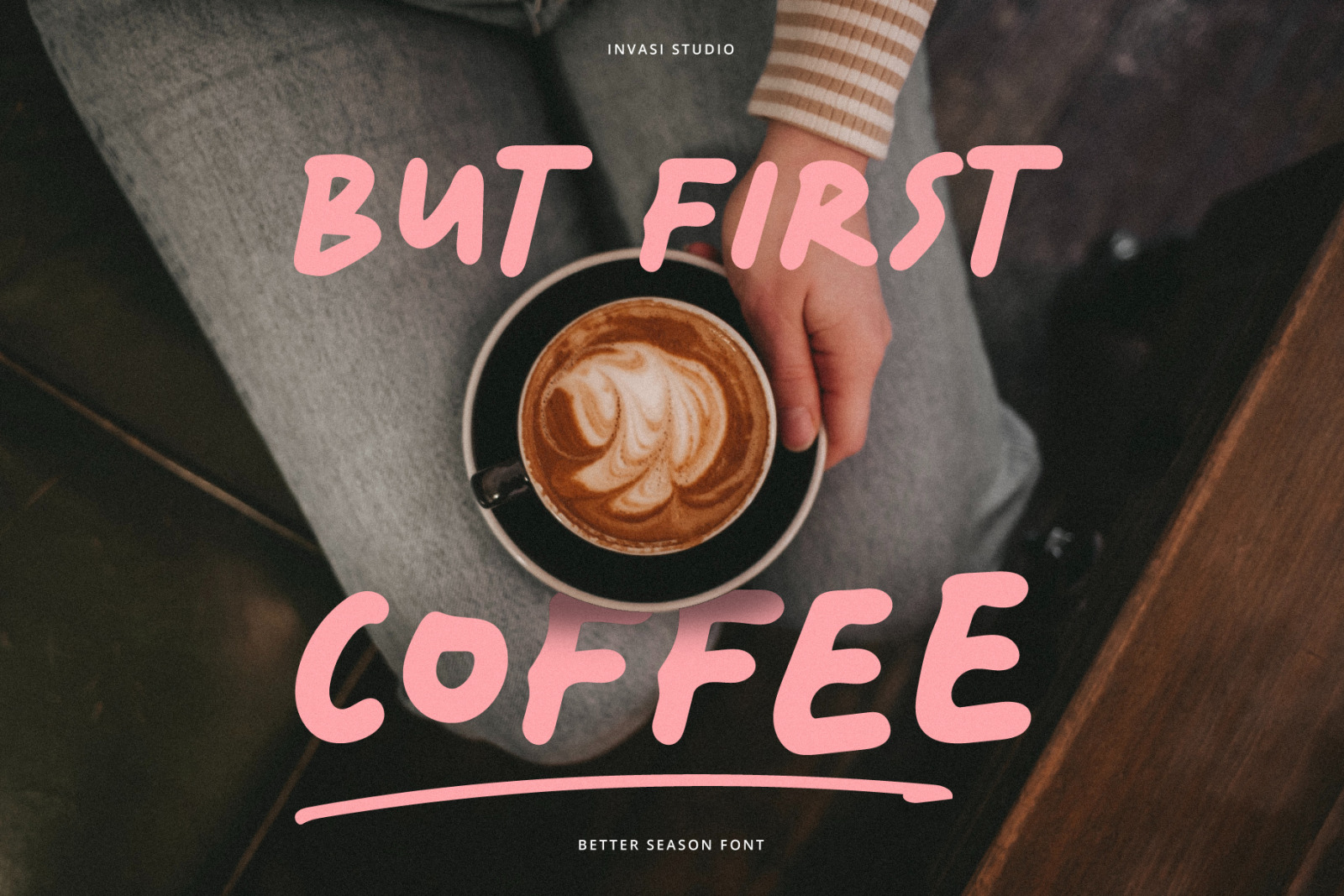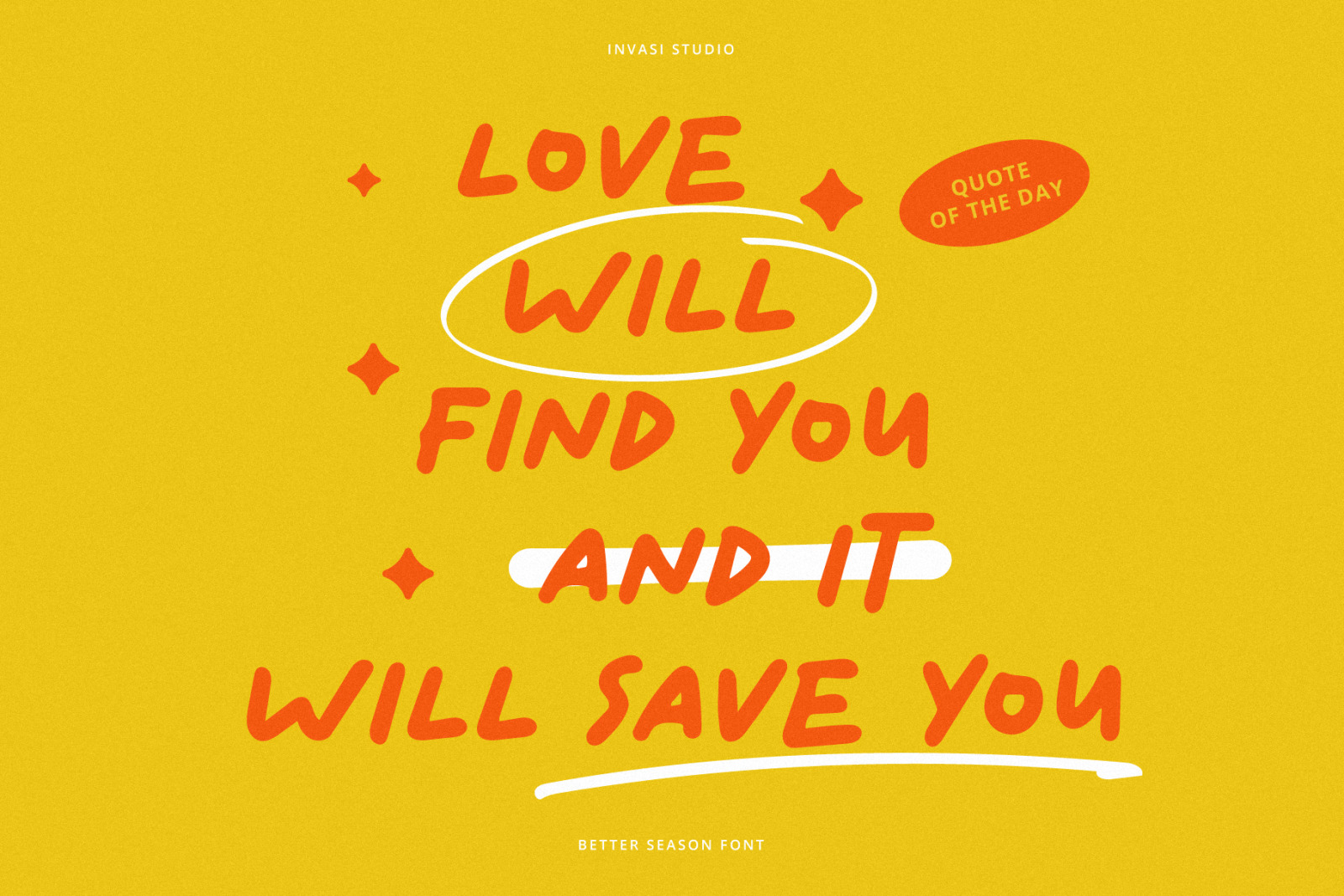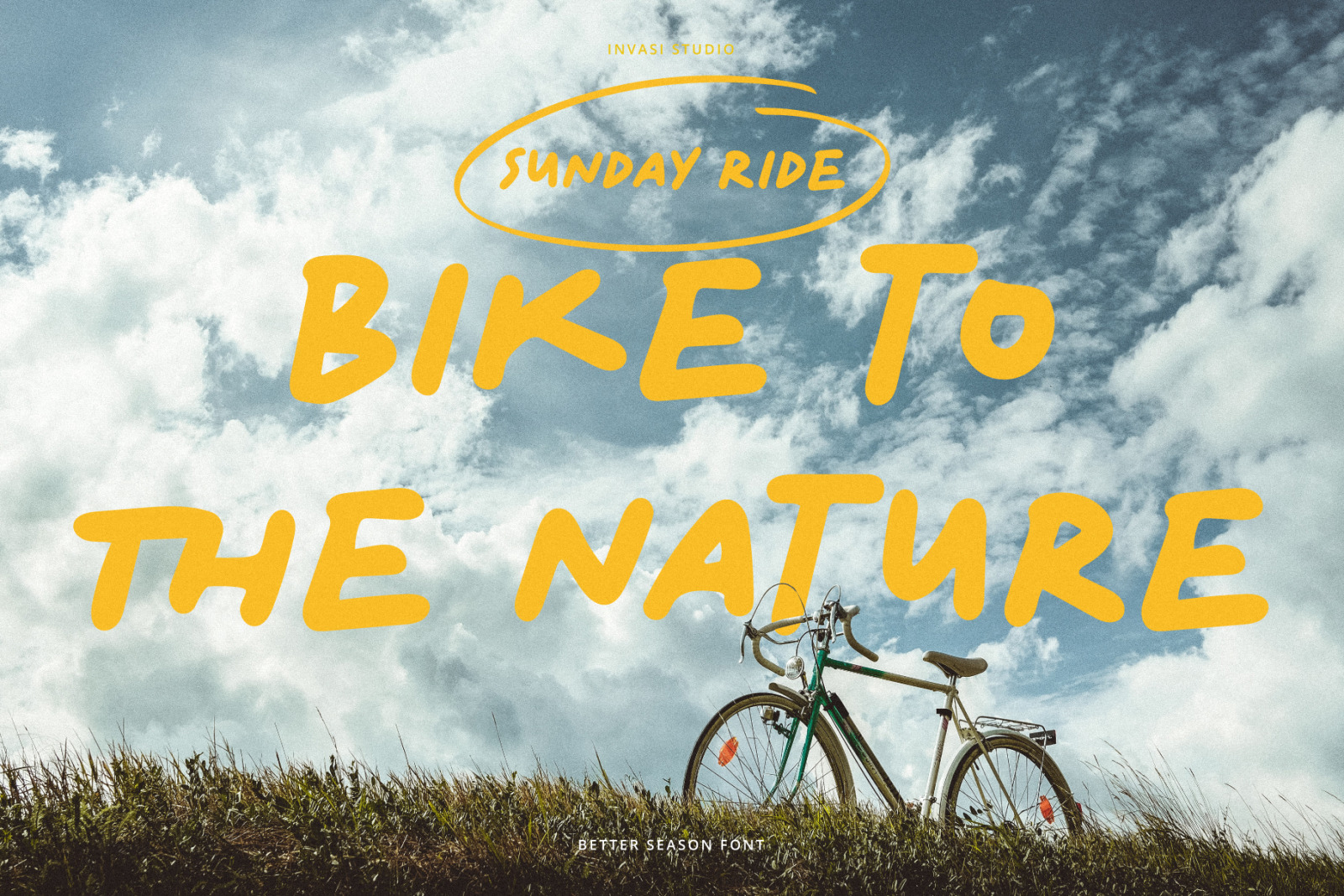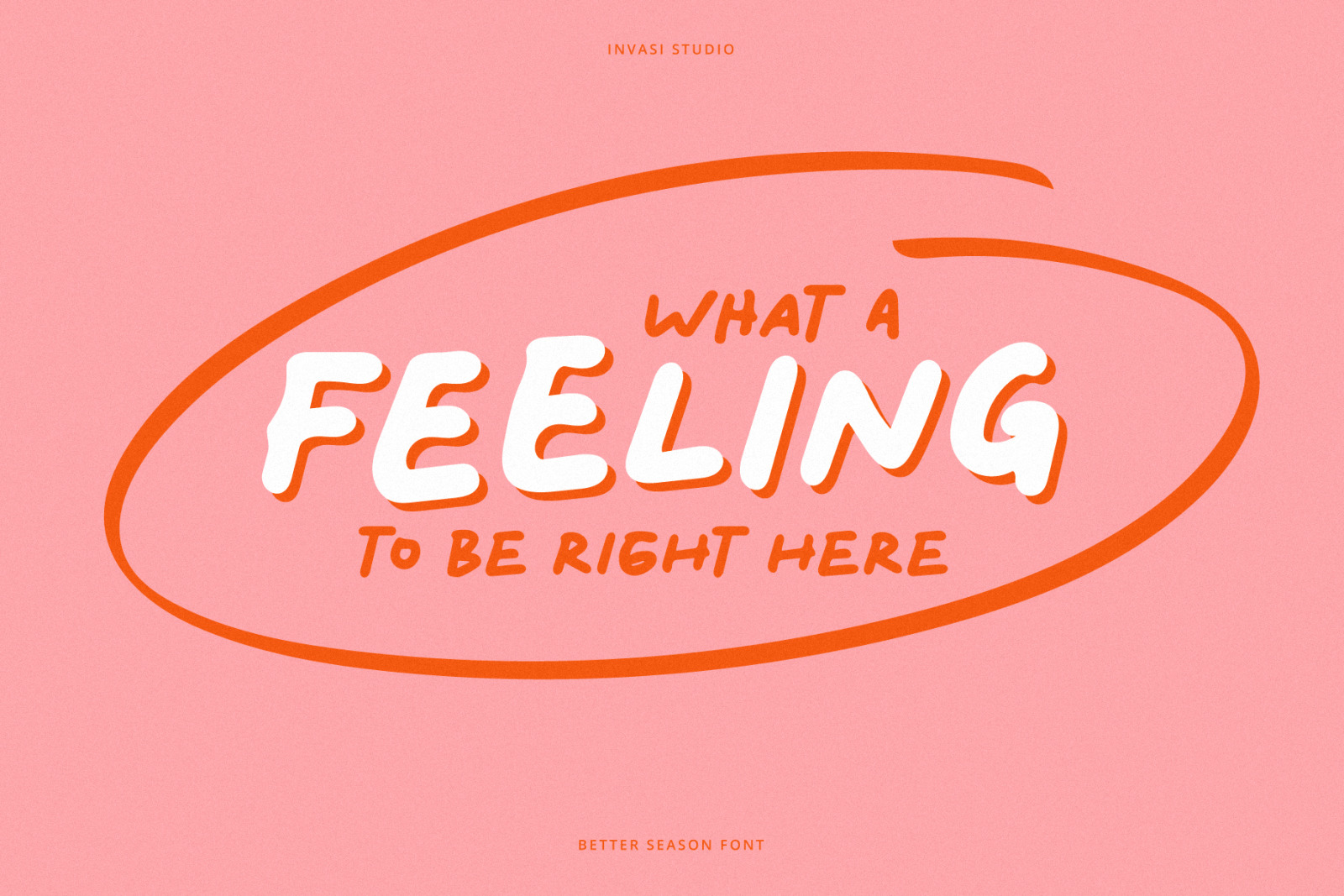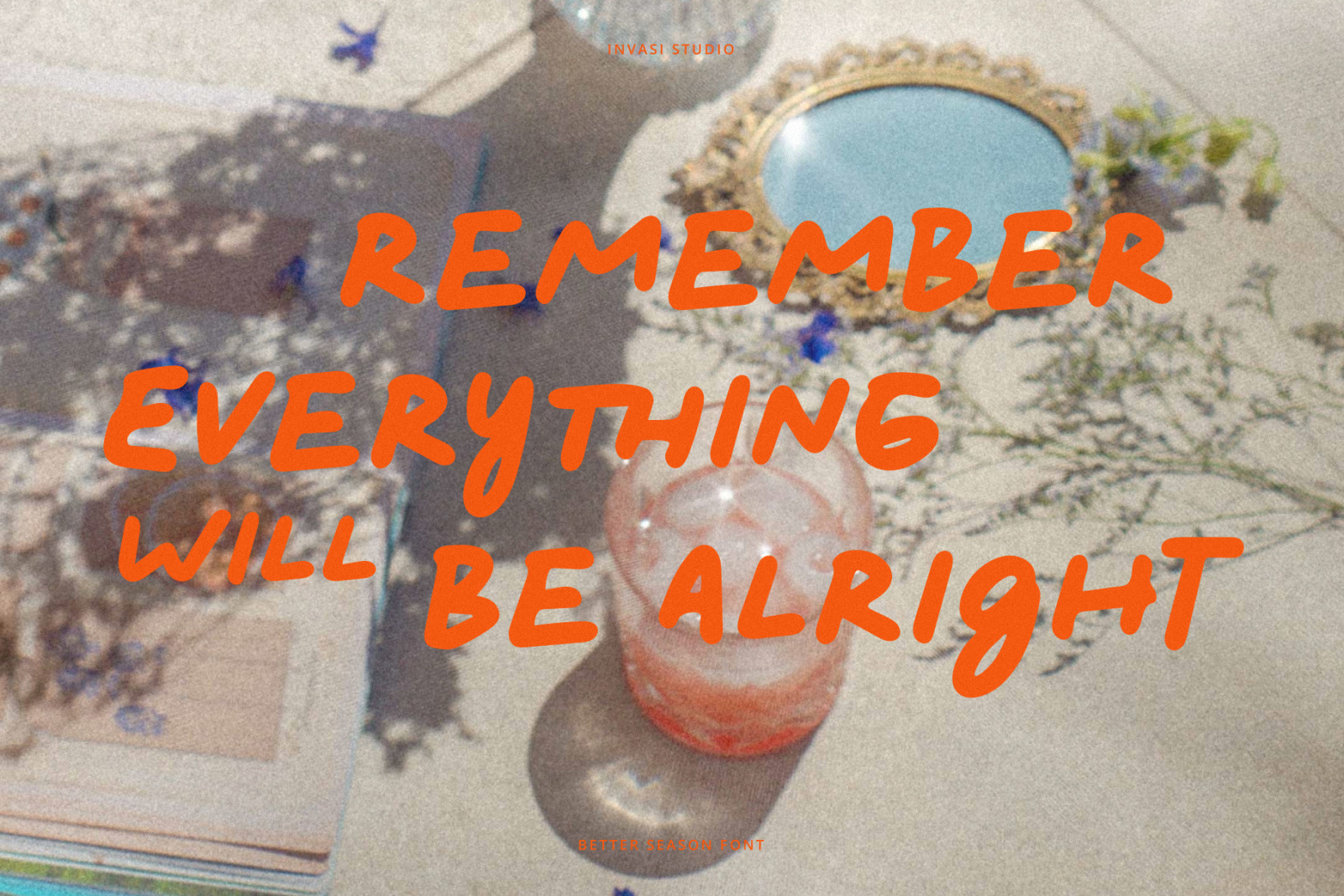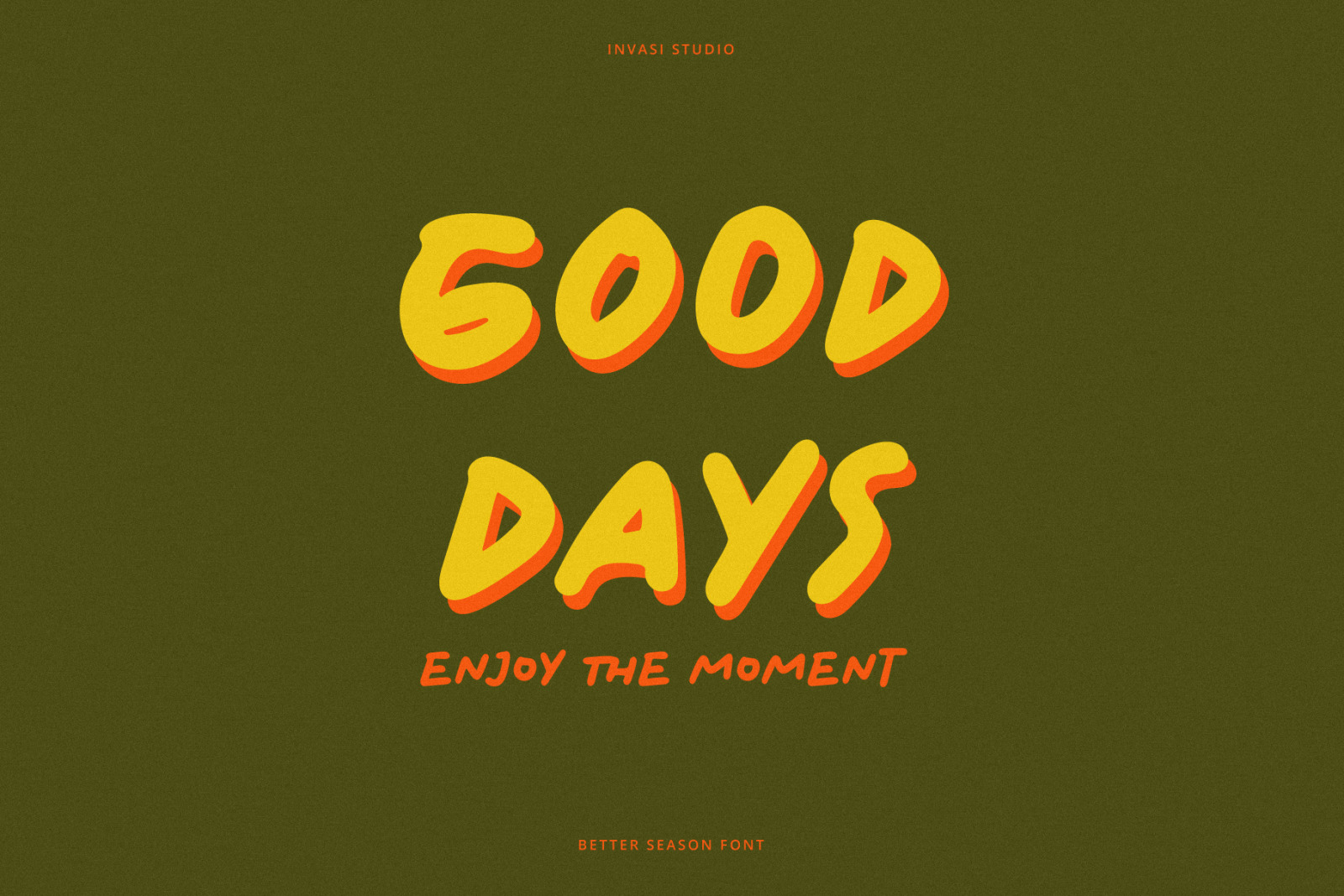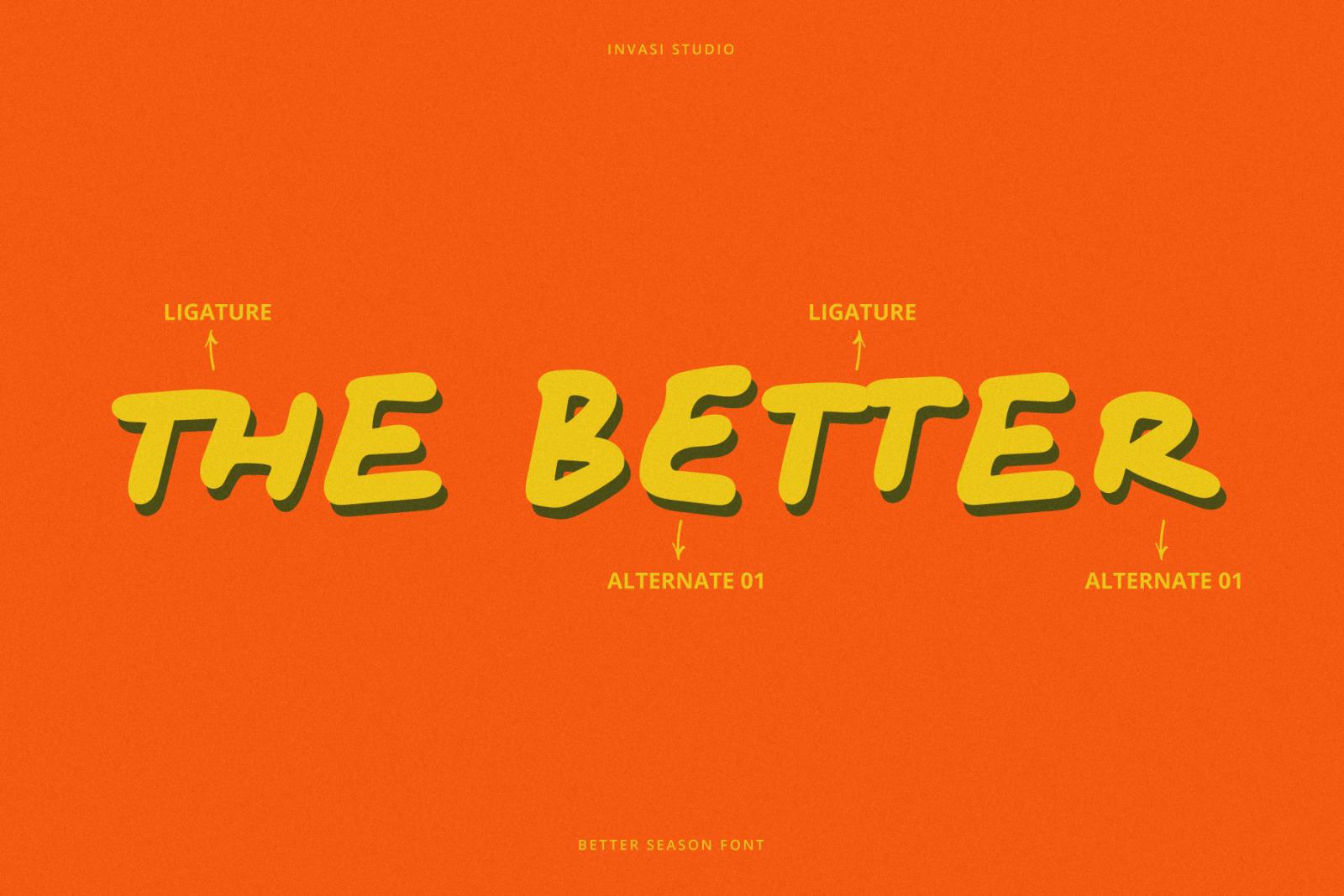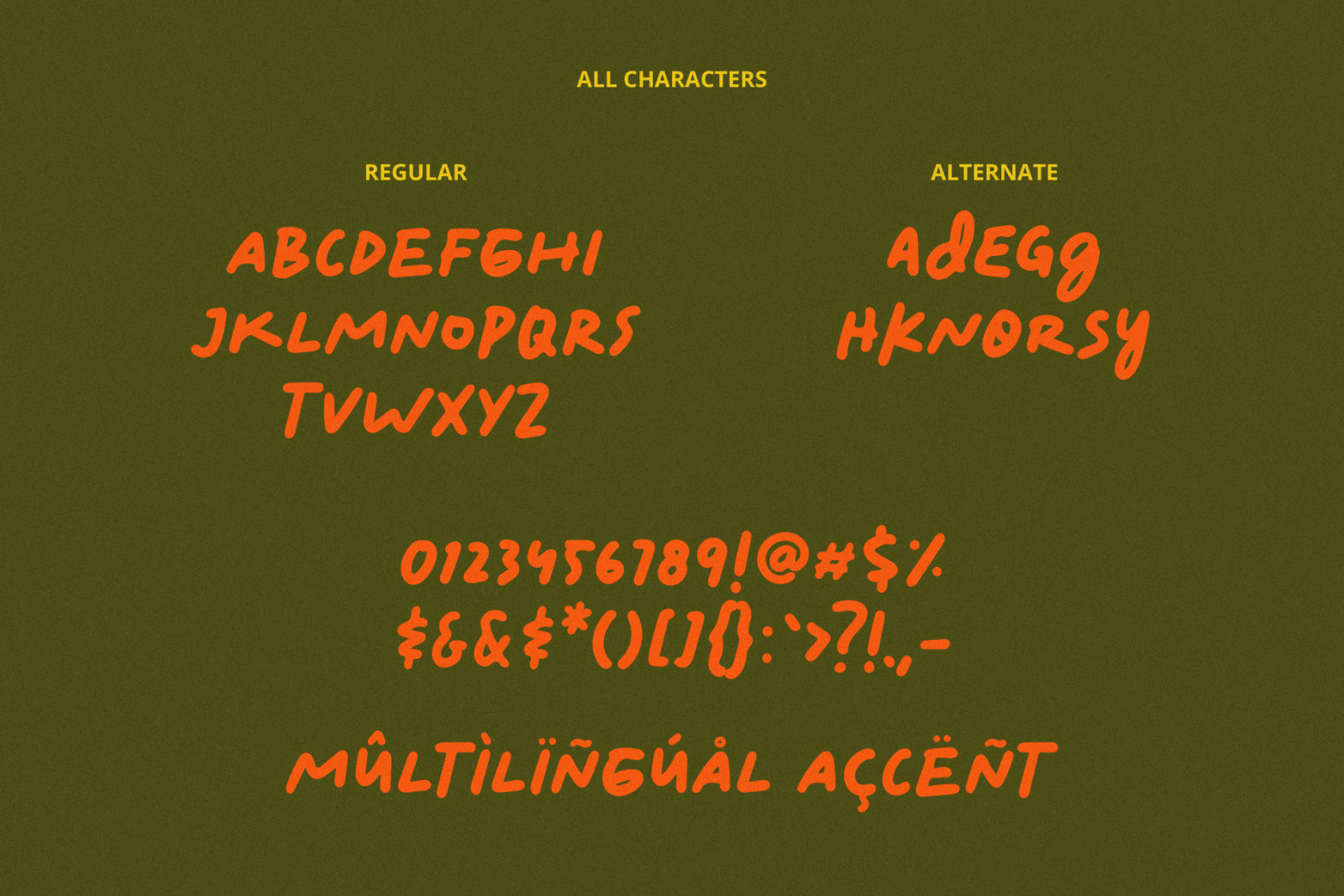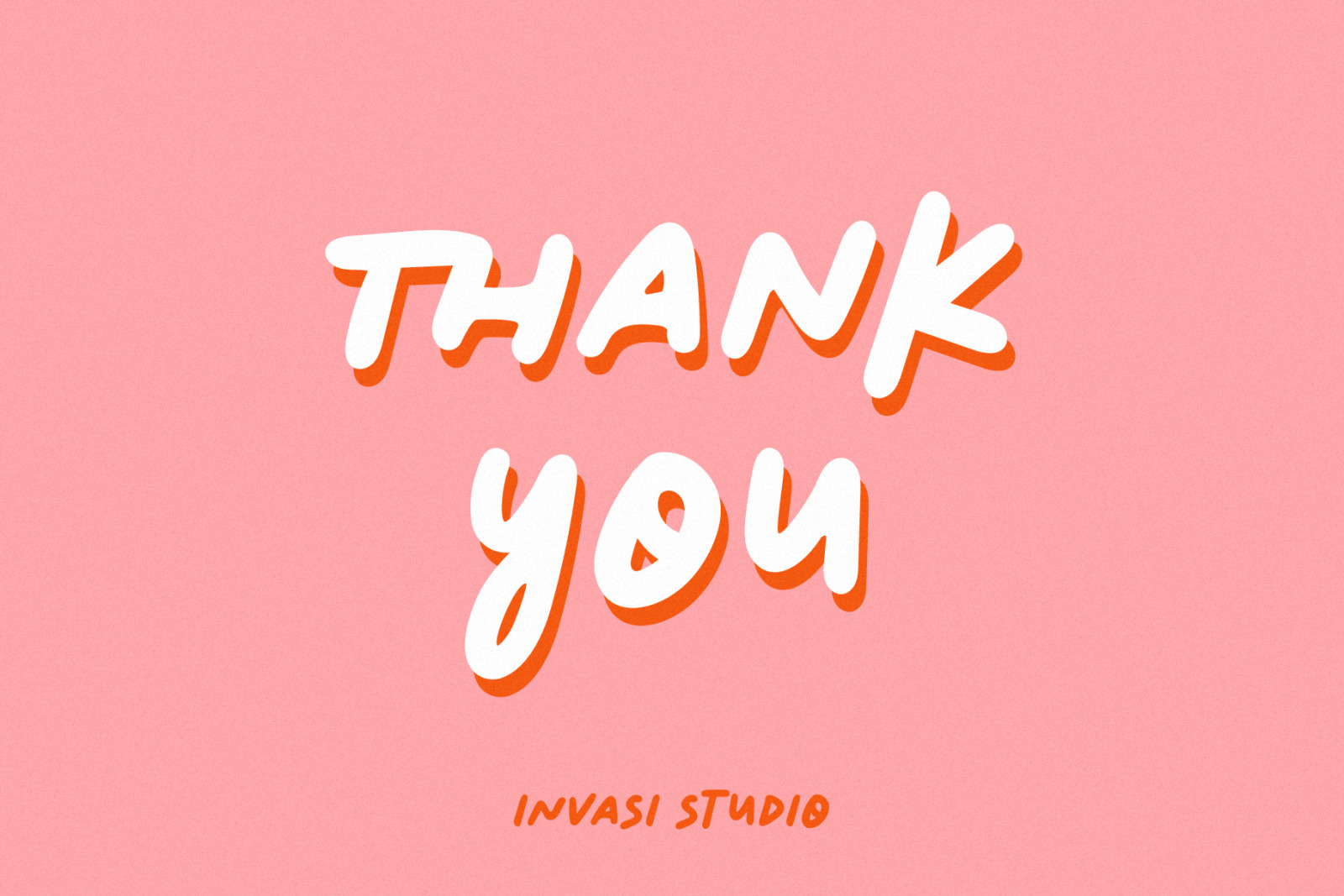
Better Season | Display Font
Introduction our new Display Font. A Better Season Font is an All-caps display font with a Brush style font and extends kerning, special for your Display or Headline Design, which puts a bold on your projects and will inspire you to create something unique or playful design.
Better Season Font will help you to create special and touching typographical designs for your display quote projects, It is perfect for headings, flyers, greeting cards, product packaging, book cover, printed quotes, logotype, apparel design, album covers.
- Multilanguage
- Alternates
- Punctuation
- Ligature